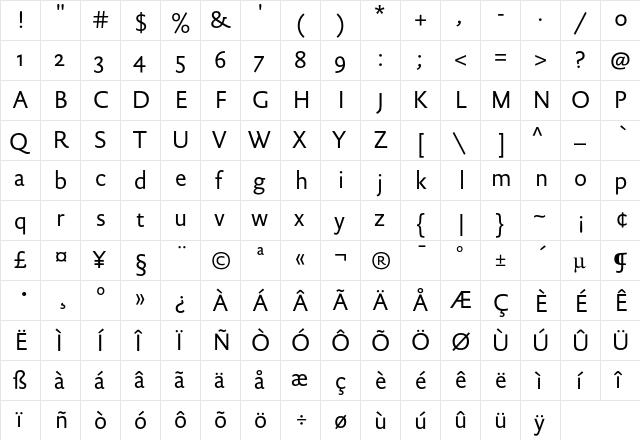
DTLDocumentaSansST Regular
Design Context for DTLDocumentaSansST Typeface
DTLDocumentaSansST takes a measured approach to typography — its balanced proportions and neutral character make it a reliable workhorse for both digital and print work.